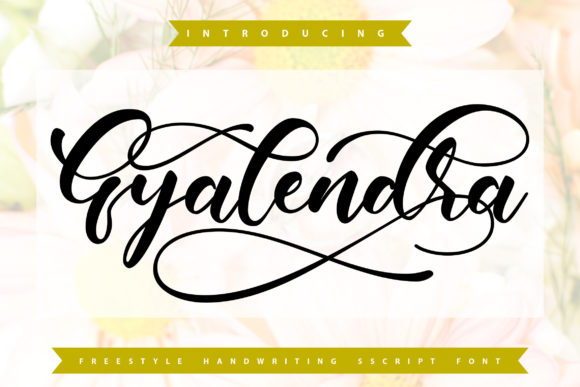
Introducing Gyalendra Script: The Ultimate Font for Creating Captivating Modern Websites
Dive into the enchanting realm of Gyalendra Script, a calligraphy-inspired font that exudes elegance and charm. Its delicate strokes and natural flow cast a spellbinding magic on your digital creations, leaving a lasting impression that speaks volumes.
Designed with the discerning eye of Vunira, Gyalendra Script belongs to the esteemed family of script fonts, renowned for their effortless grace and timeless appeal. Crafted with the utmost attention to detail, each letterform dances across the screen, capturing the essence of handwritten beauty.
Whether you're a seasoned designer seeking to elevate your next project or a budding entrepreneur yearning for a distinctive online presence, Gyalendra Script holds the key to unlocking your creative potential. Its versatility shines through, adapting seamlessly to a myriad of digital platforms, from sleek websites to captivating social media posts.
Indulge in the artistic allure of Gyalendra Script and watch as your creations captivate and enthrall. Let your imagination soar as you weave words into captivating designs, leaving an imprint of sophistication and charm that sets you apart from the ordinary.